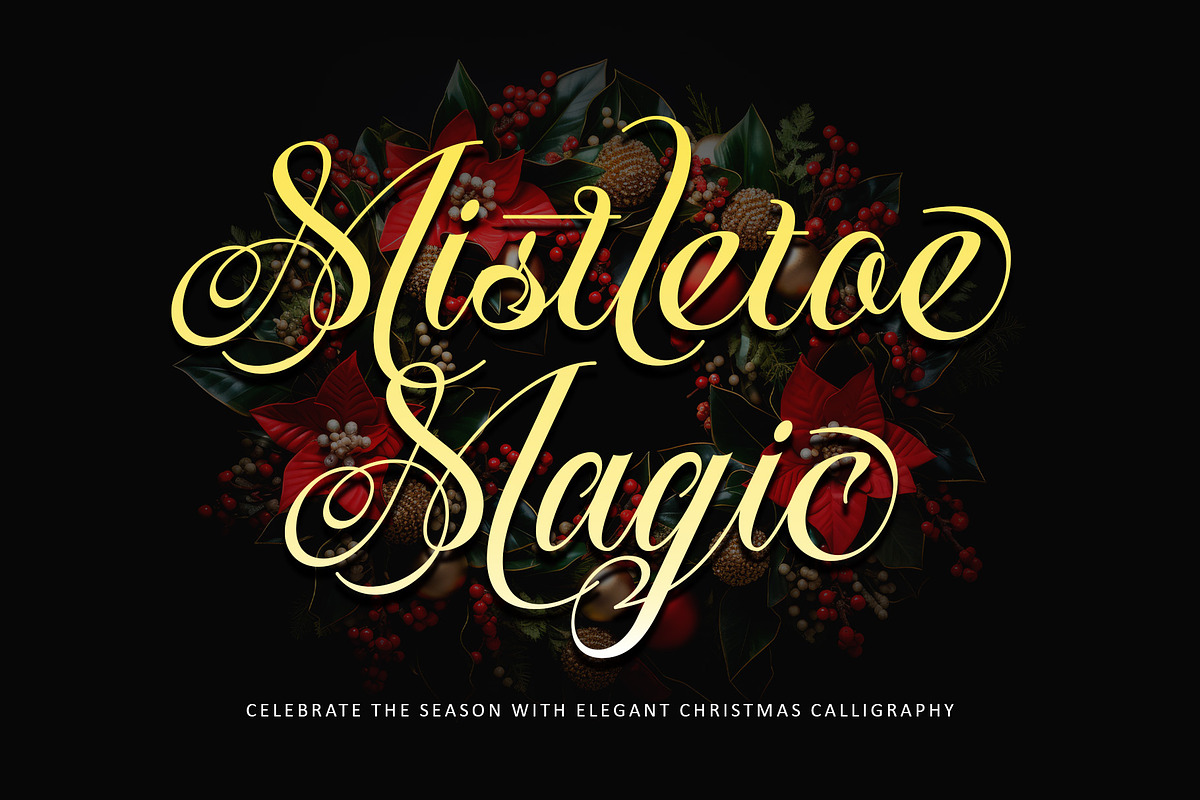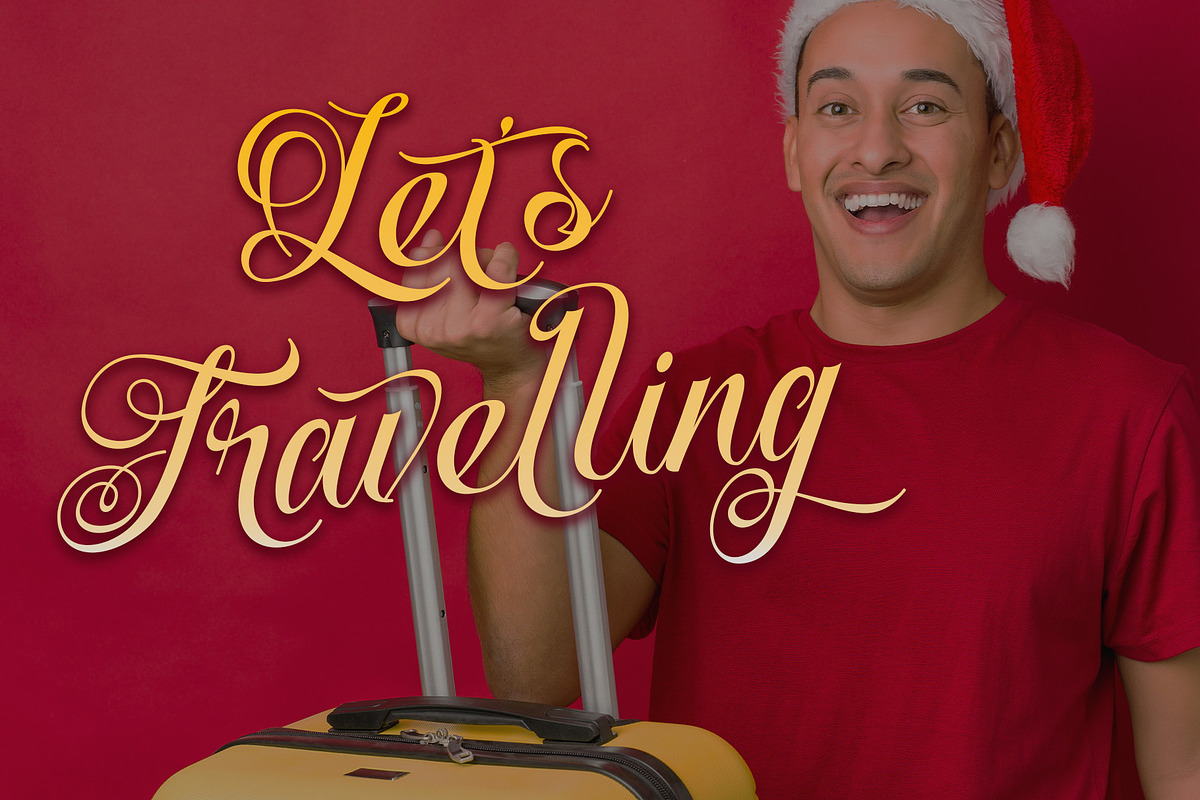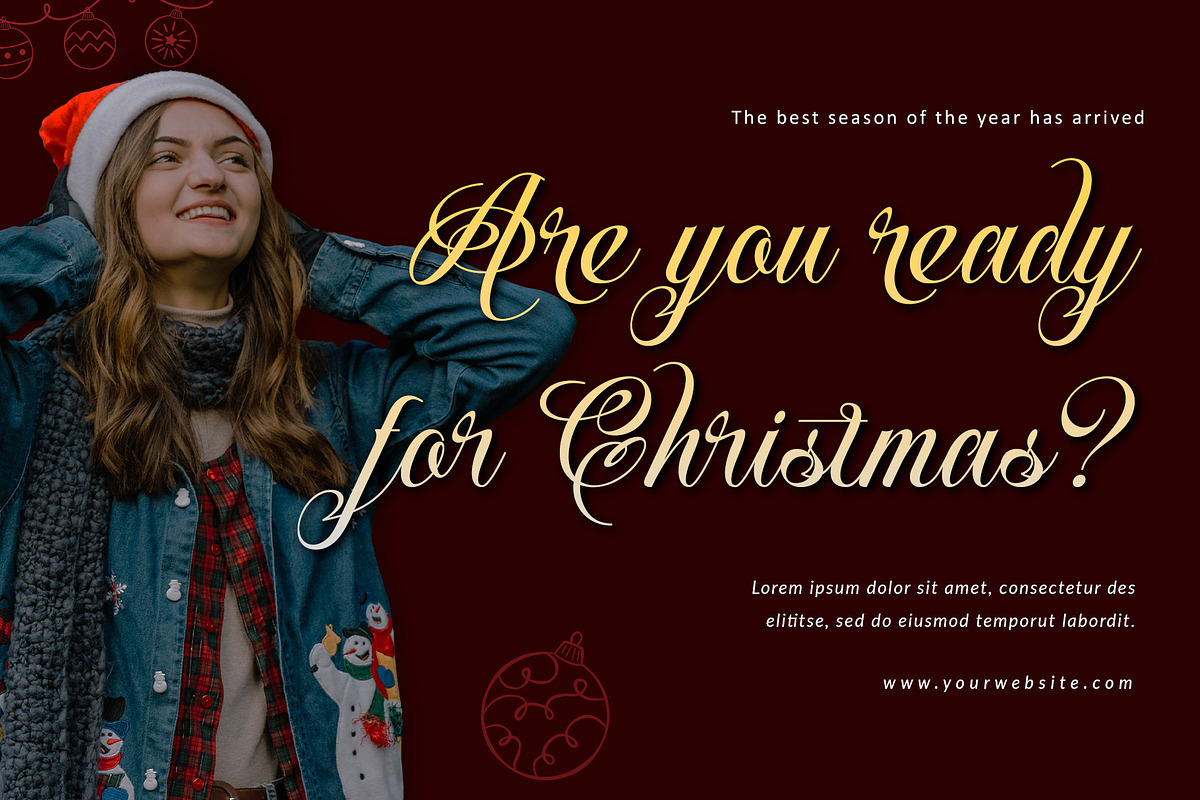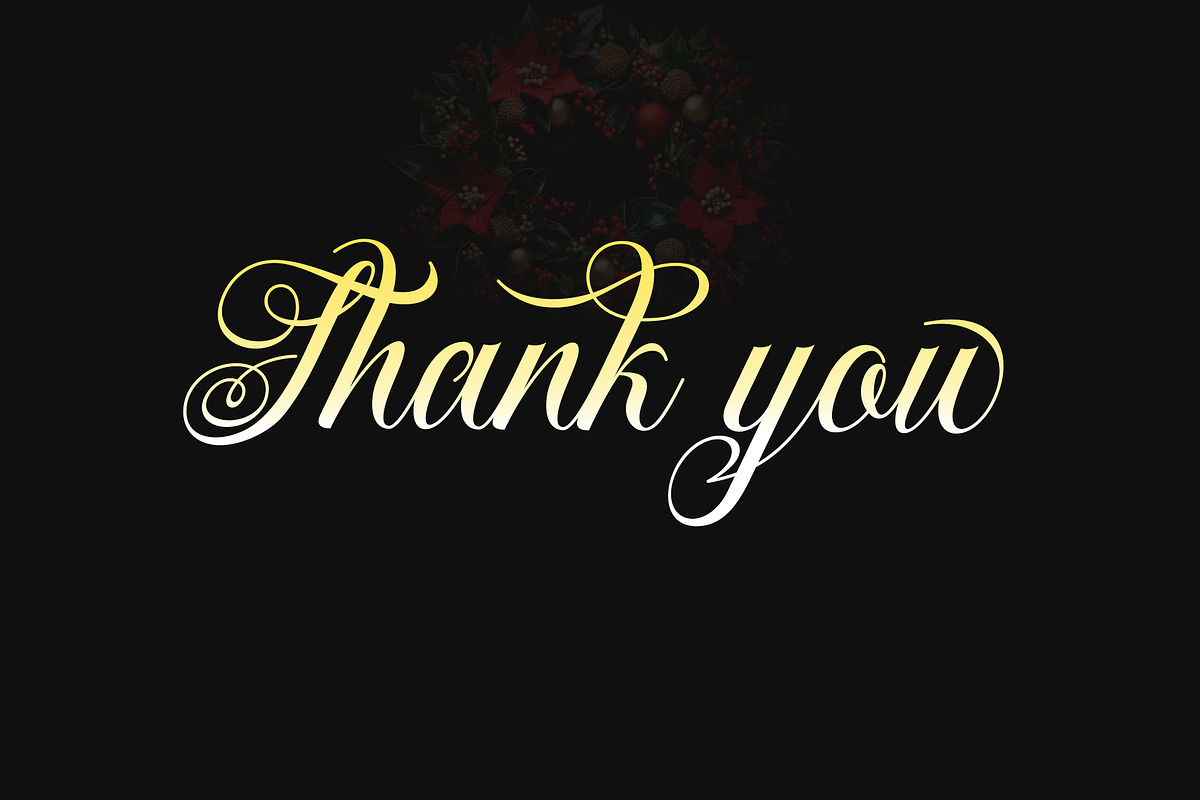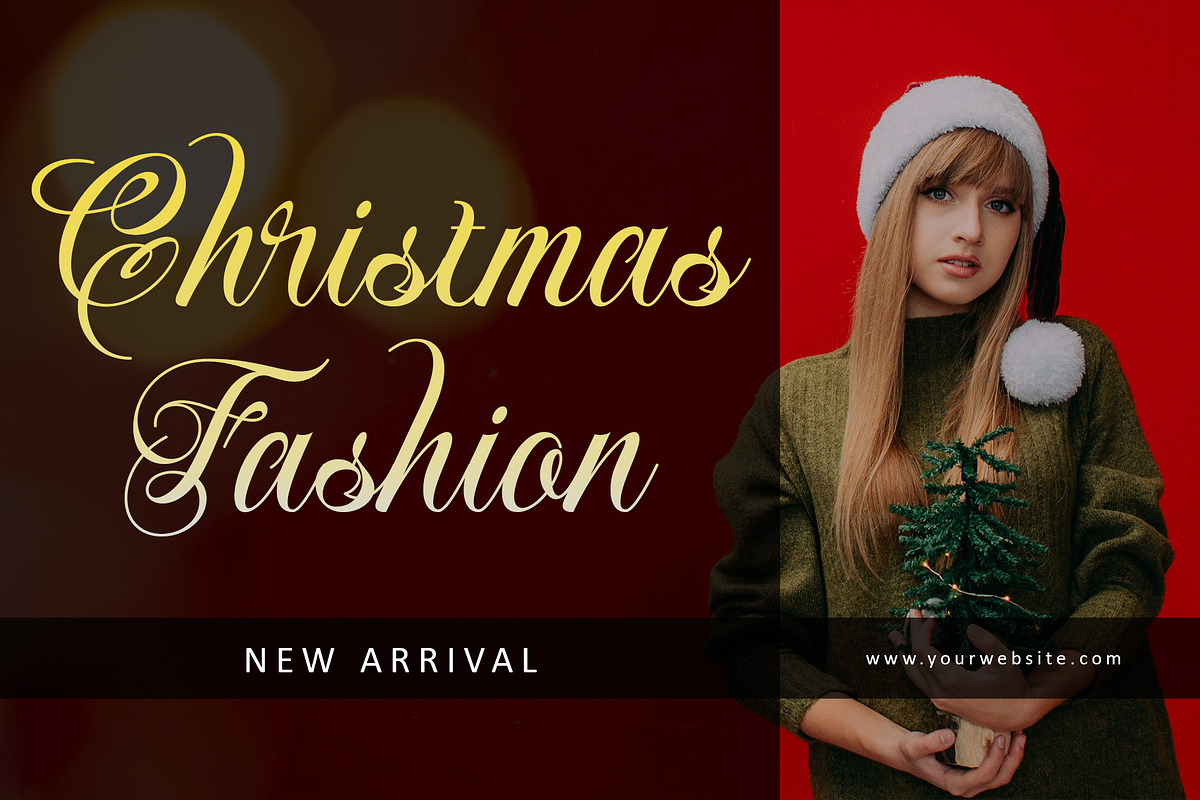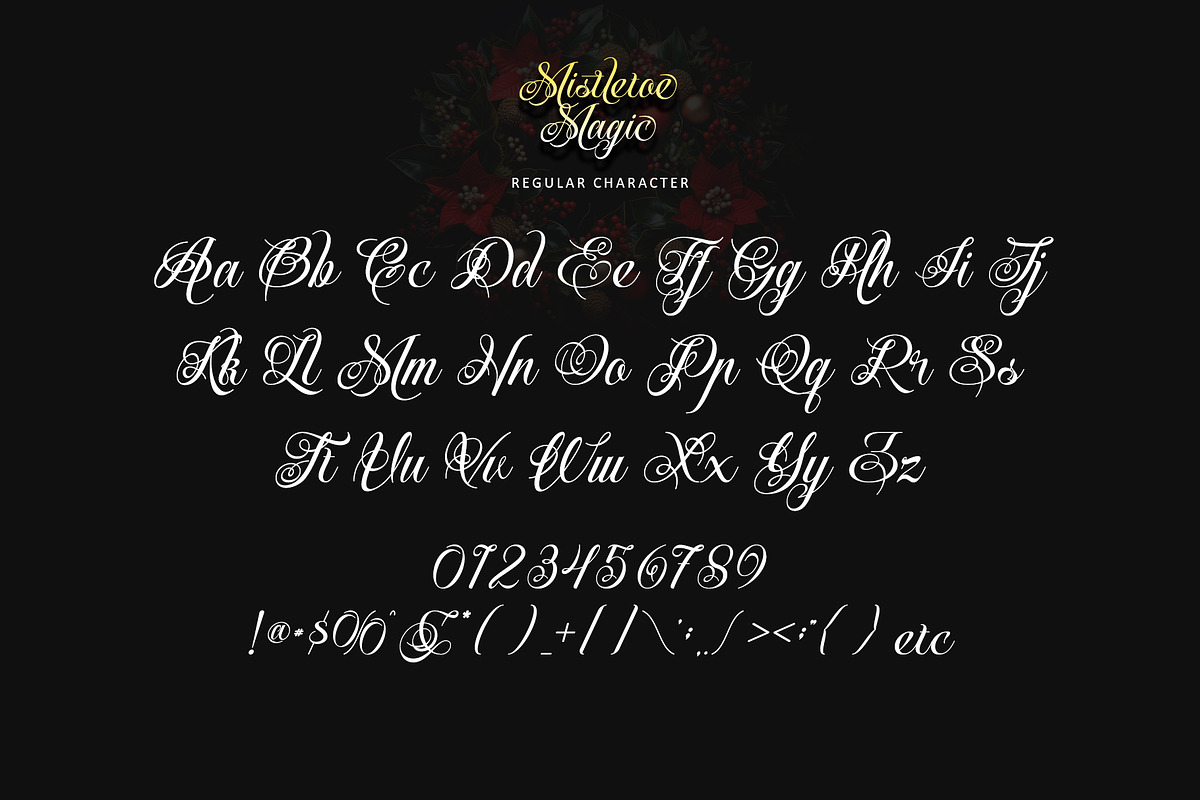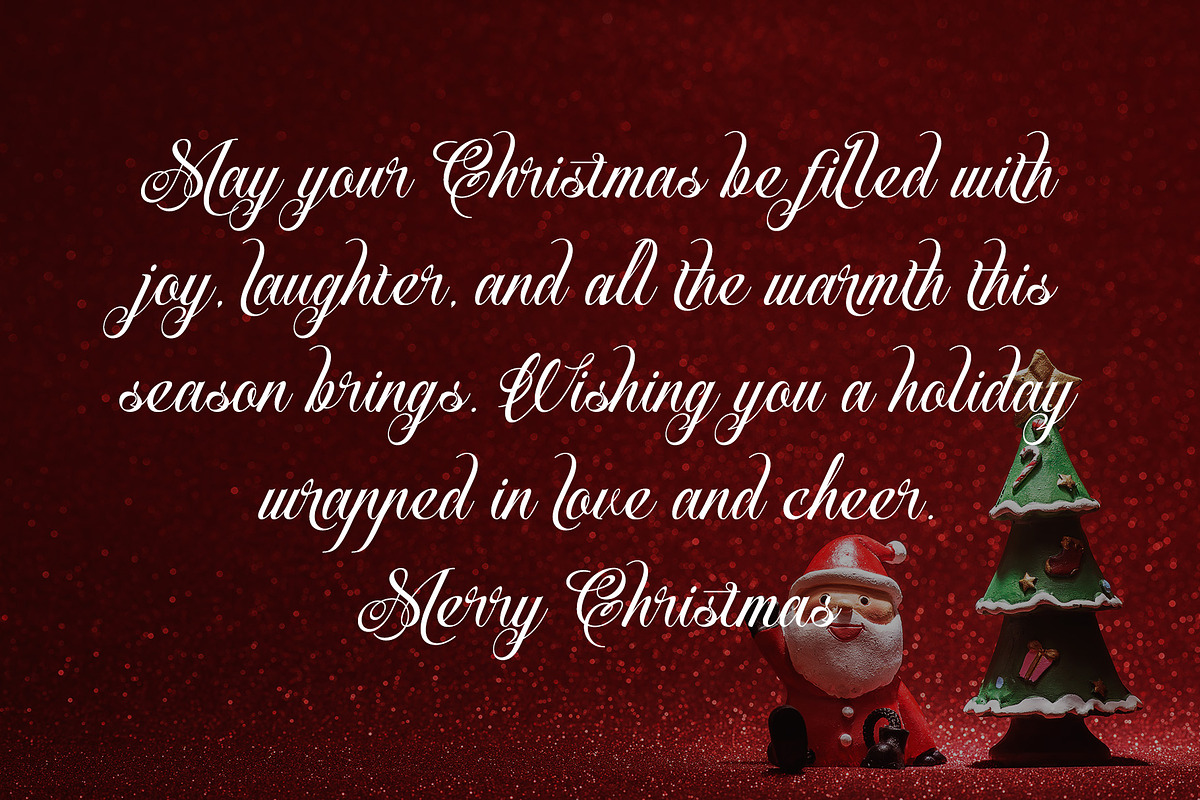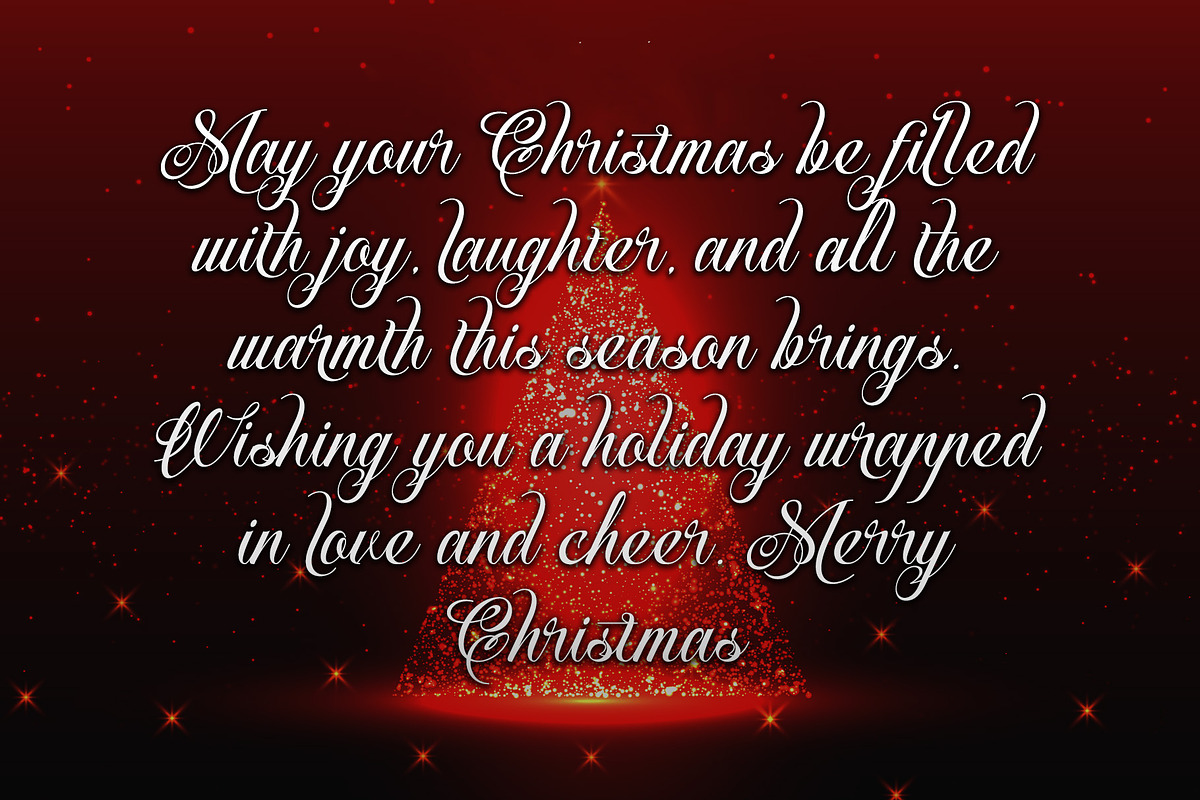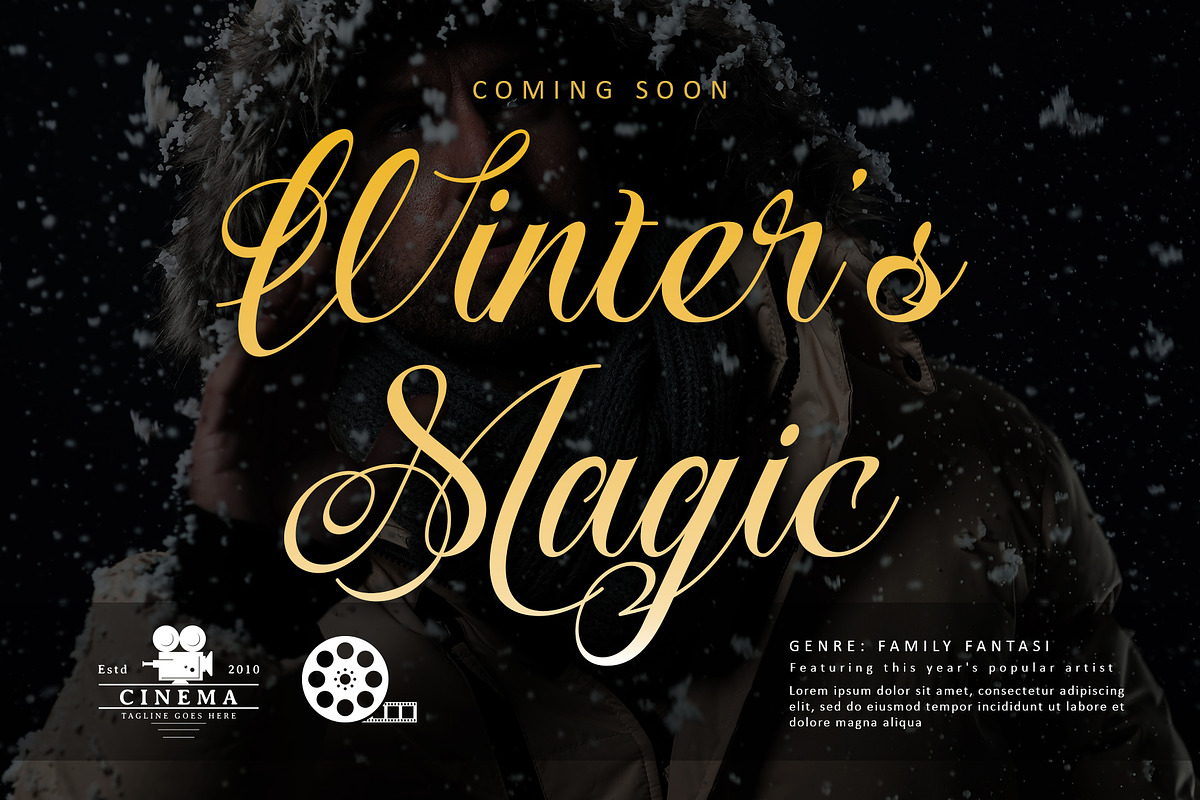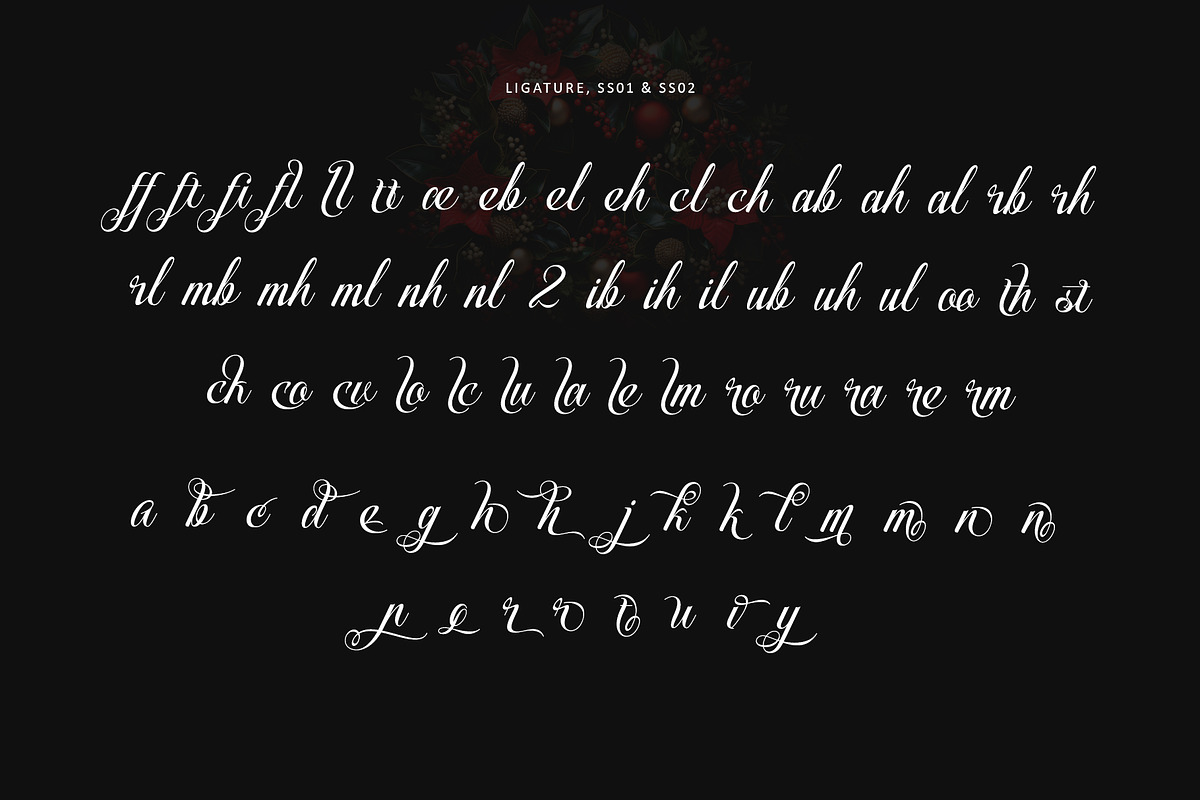
Mistletoe Magic
Introducing Mistletoe Magic, a captivating calligraphy font that exudes festive elegance and sophistication. Fall in love with its enchanting style, perfect for creating stunning holiday designs. Mistletoe Magic brings a touch of glamour and class to your Christmas moments. This font is PUA encoded, ensuring easy access to all the exquisite glyphs and swashes
Many Features:
- Support multilingual; ä ö ü Ä Ö Ü ß ¿ ¡
- lowercase and uppercase letters
- Alternate, Swash, Titling, Ligature, SS01, & SS02